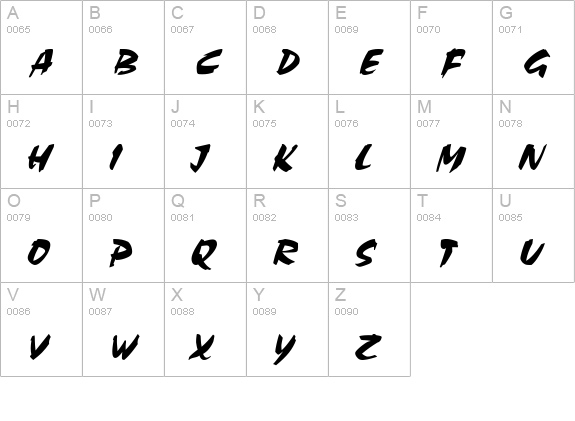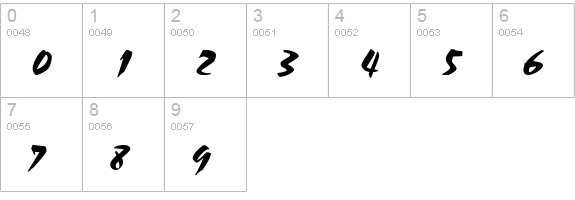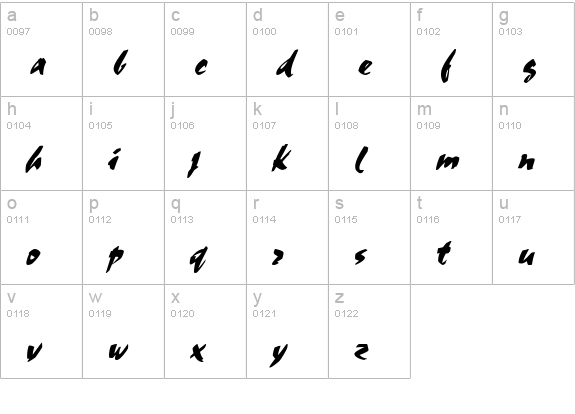
Stucco 27 Italic is a distinctive, italic variant in the Stucco typeface family \xE2\x80\x94 well suited to design and typography projects.
Stucco 27 Italic font is a sleek and stylish typeface that exudes sophistication and elegance. Its slanted design adds a touch of flair to any project, making it perfect for headings, titles, and other display purposes. The italicized characters of Stucco 27 Italic font have a unique charm that sets them apart from traditional fonts, adding a modern twist to your designs. Best of all, Stucco 27 Italic font is available for free download at FontsMarket.com. This means you can easily access this beautiful font without any cost, making it a valuable addition to your font collection. Whether you're working on a branding project, creating invitations, or designing a website, Stucco 27 Italic font is sure to elevate your work with its sophisticated and distinctive style. Download it today and bring your designs to the next level!